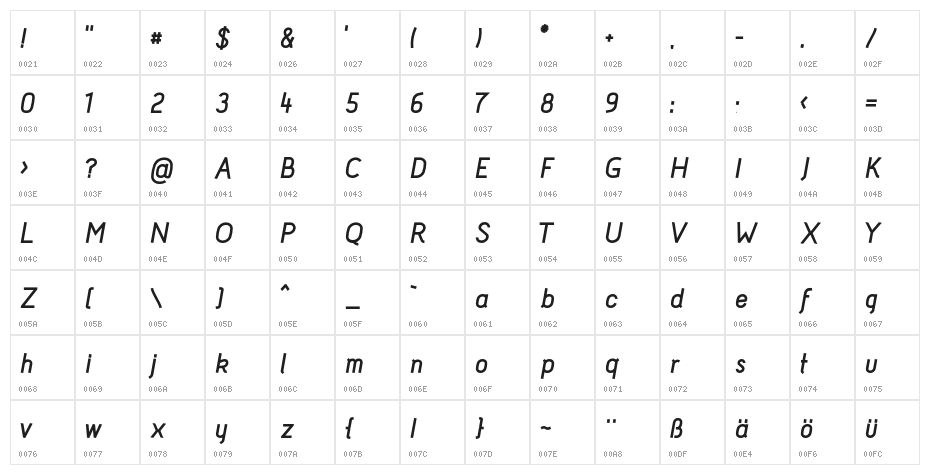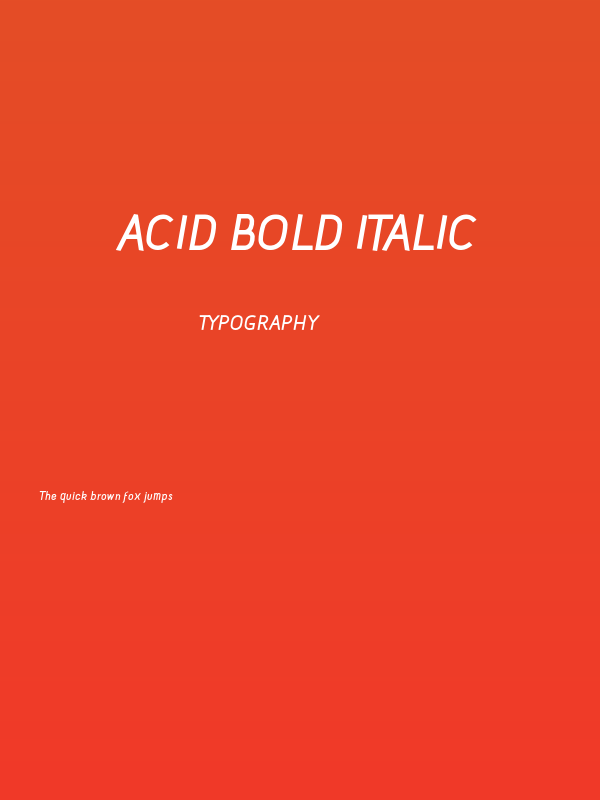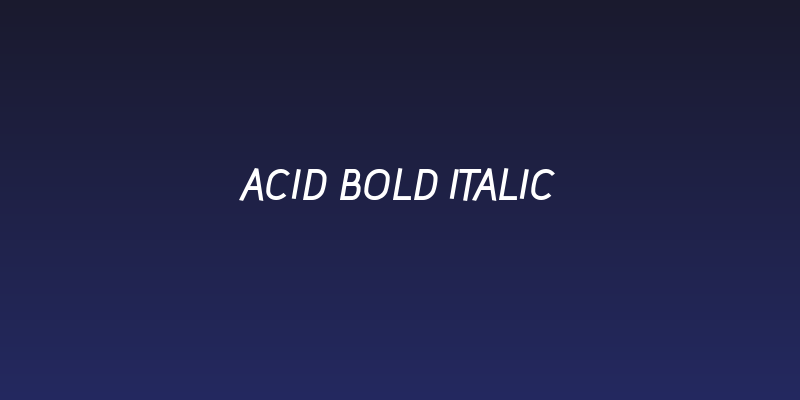
Acid Bold Italic Font
Acid Bold Italic Description
This font features a bold and italicized style, characterized by its strong, dynamic slant and pronounced weight. The letters are designed with a modern aesthetic, combining clean lines with a slight curvature that adds a sense of motion and energy. The uppercase letters maintain a consistent height, while the lowercase letters exhibit a balanced proportion, ensuring readability. Numbers are bold and clear, making them suitable for impactful displays. Special characters are distinct and well-integrated, enhancing the font's versatility. Overall, this font exudes a contemporary and assertive feel, making it ideal for attention-grabbing headlines and modern design projects.